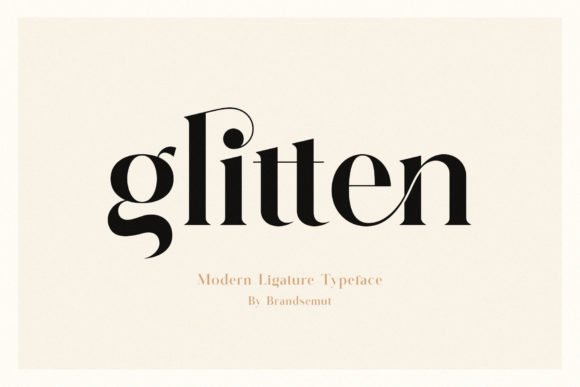
Discover the Magic of Glitten Font
Have you ever stared at a blank canvas, feeling the creative juices flowing, and suddenly, an idea strikes? That’s exactly what happened when designers first laid eyes on the stunning Glitten Font. This bold and elegant serif font has captured the hearts of creatives worldwide, and for good reason.
Glitten Font is more than just a typography choice – it’s a statement piece that elevates any design to the next level. With its versatility and timeless appeal, it’s the perfect addition to any project, from elegant invitations to bold advertisements. Whether you’re a seasoned pro or just starting out, Glitten Font is a valuable asset that will take your designs to new heights.
- Unique Characteristics: The Glitten Font features a unique, modern design with a mix of geometric and organic elements, making it perfect for creating eye-catching headings and titles.
Review of Glitten Font
Overall, I think Glitten Font is a beautiful addition to any design project ✨. The delicate, hand-drawn style adds a touch of whimsy and sophistication that’s hard to resist.
- Unique and elegant design style ✨
I’ve had great success using Glitten Font in both digital and print projects. It’s a versatile font that works well in headings, body text, and even as a title font.
- May be difficult to read in small sizes due to intricate details ⚠️
- Lack of bold and italic variants, which may limit its use in certain situations ⚠️
While Glitten Font is a stunning addition to any design project, it’s not without its limitations. However, for the right project, the benefits far outweigh the drawbacks.
I highly recommend Glitten Font for designers looking to add a touch of elegance and sophistication to their work. With its unique design style and high-quality vector files, it’s a valuable asset to any design library.
Tips for Getting the Most Out of Glitten Font
Use Glitten font for creative and elegant designs, such as wedding invitations, branding materials, and marketing campaigns.
Experiment with different font sizes and colors to create visual interest and balance.
Pair Glitten font with other elegant fonts to create a sophisticated look.
Branding and marketing materials
Editorial and publishing designs
Alternatives to Glitten Font
Great Vibes is a beautiful, modern script font that is perfect for creating elegant and sophisticated designs. It is ideal for use in invitations, wedding stationery, and other formal events. Great Vibes has a similar feel to Glitten Font, but with a more refined and polished look.
Comparison: While Glitten Font has a more whimsical and playful feel, Great Vibes is more sophisticated and elegant. Great Vibes is also more versatile and can be used in a wider range of design contexts.
Carolyna Pro is a elegant and refined script font that is perfect for creating luxurious and high-end designs. It is ideal for use in branding, advertising, and other high-end marketing materials. Carolyna Pro has a similar level of sophistication to Glitten Font, but with a more classic and timeless feel.
Comparison: While Glitten Font has a more modern and trendy feel, Carolyna Pro is more traditional and classic. Carolyna Pro is also more versatile and can be used in a wider range of design contexts, from formal events to high-end marketing materials.